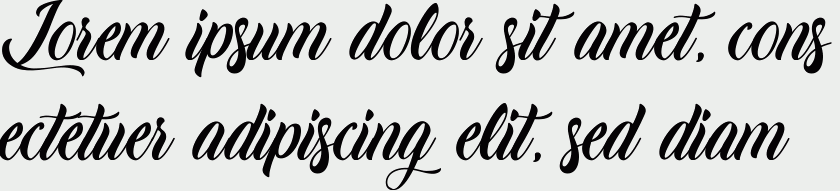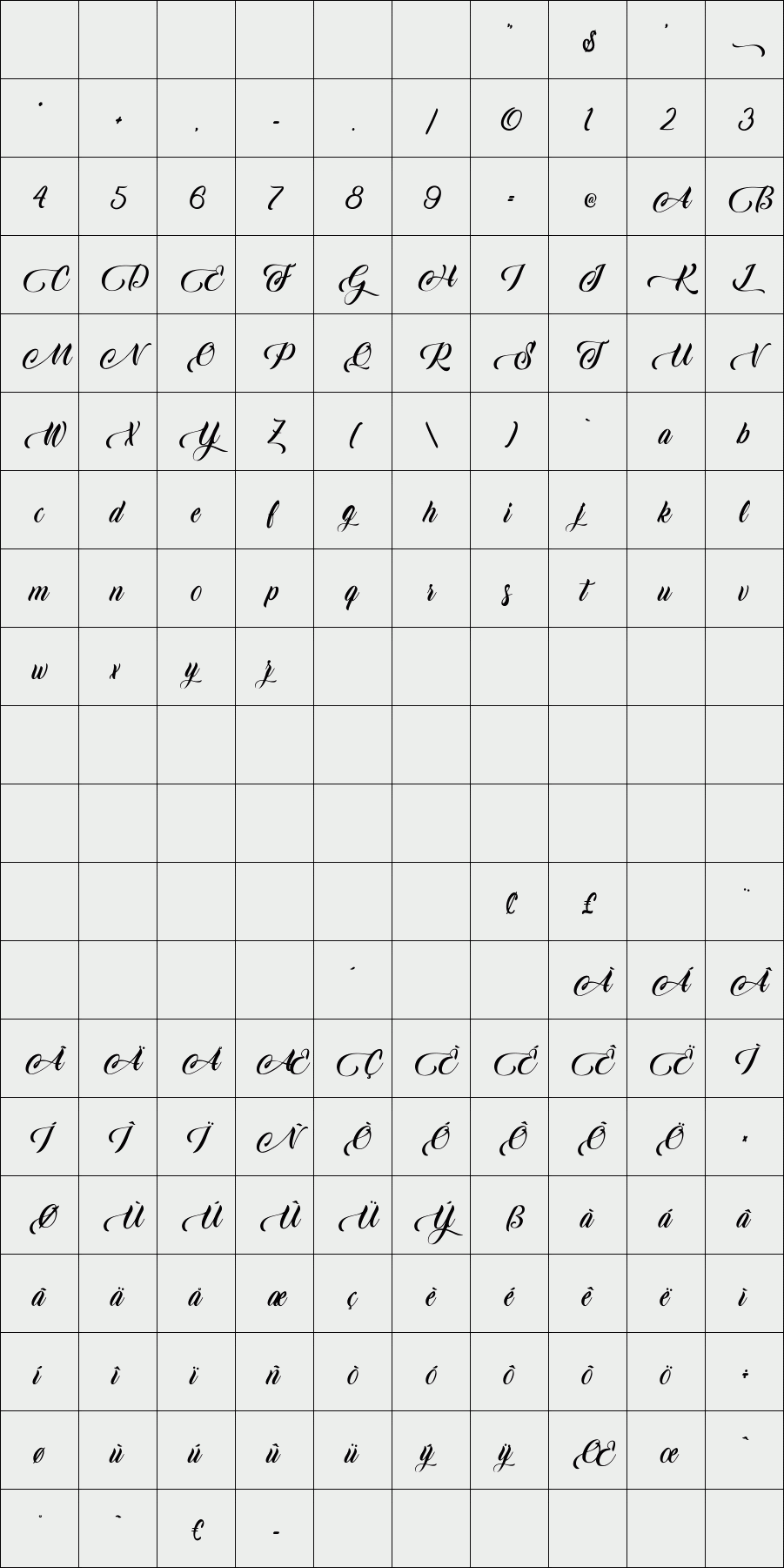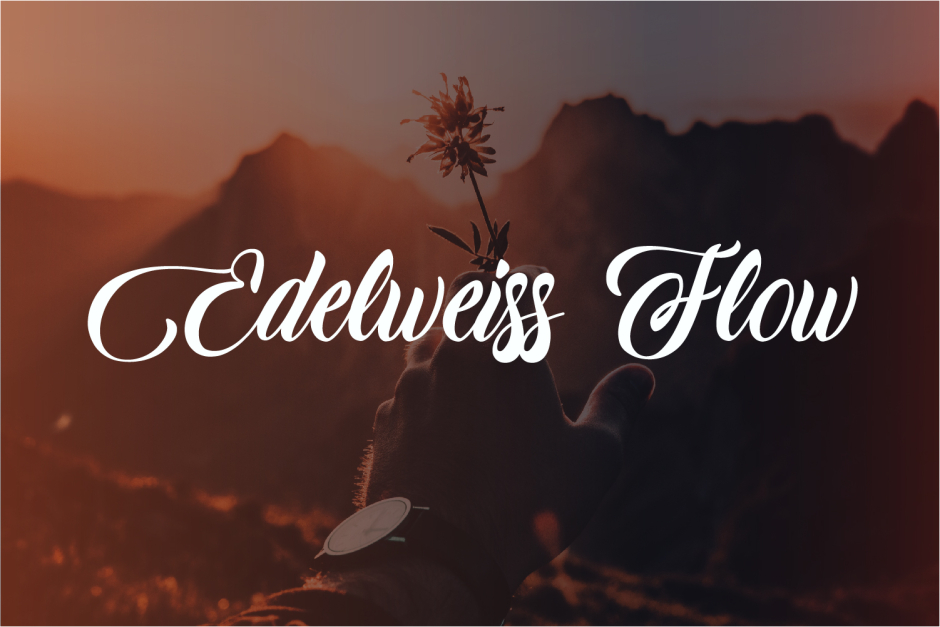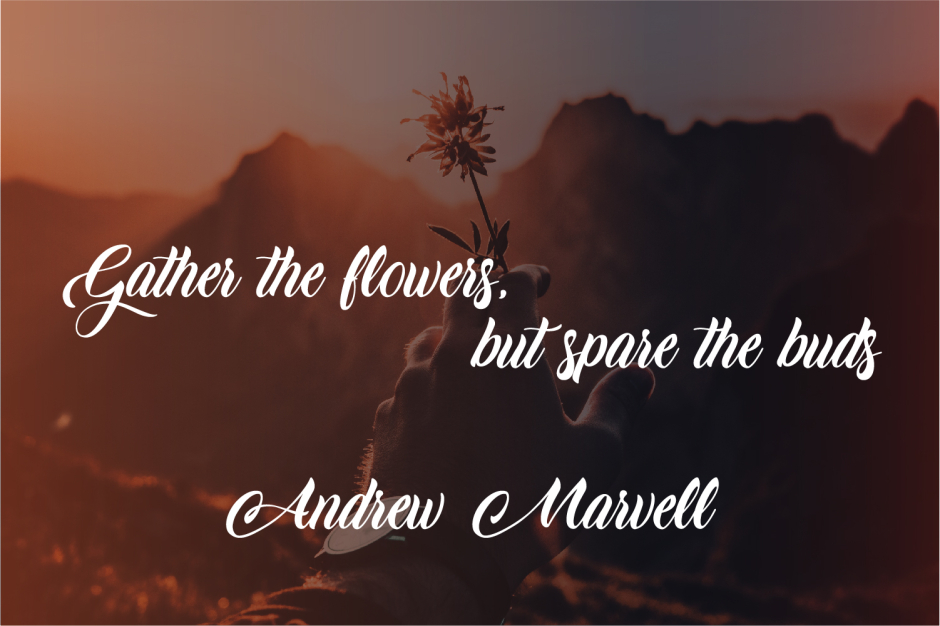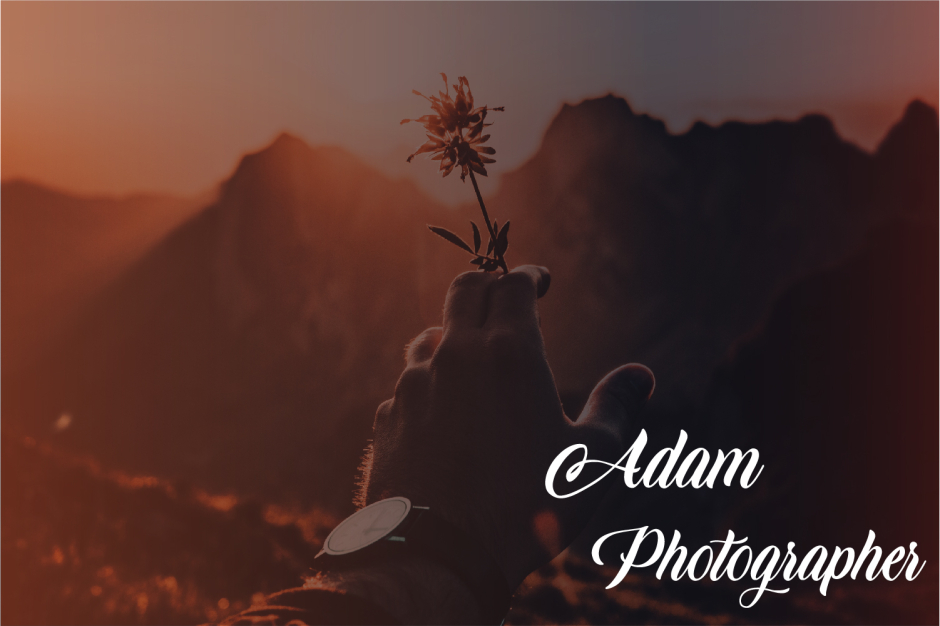
Edelweiss Flow
"Edelweiss Flow" is a font display that is comes with uppercase, lowercase, numerals, punctuations. Perfect to use for Logotype, Letterhead, Poster, Apparel Design, Label and etc.